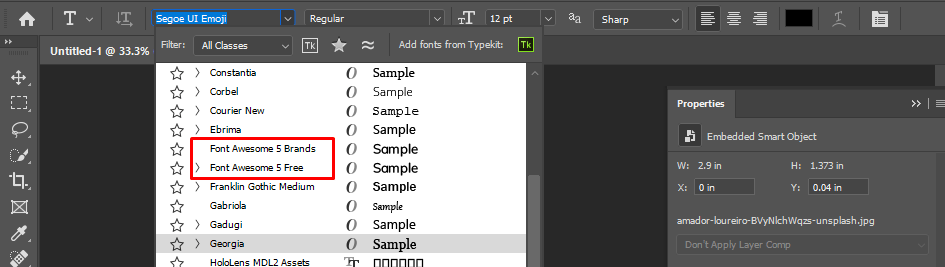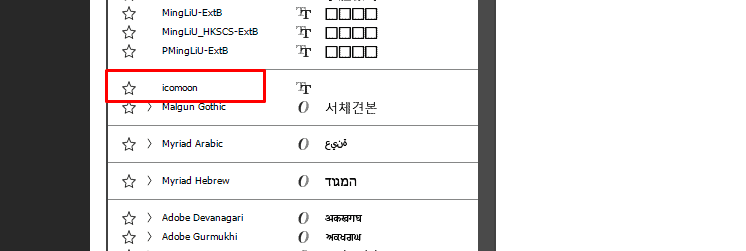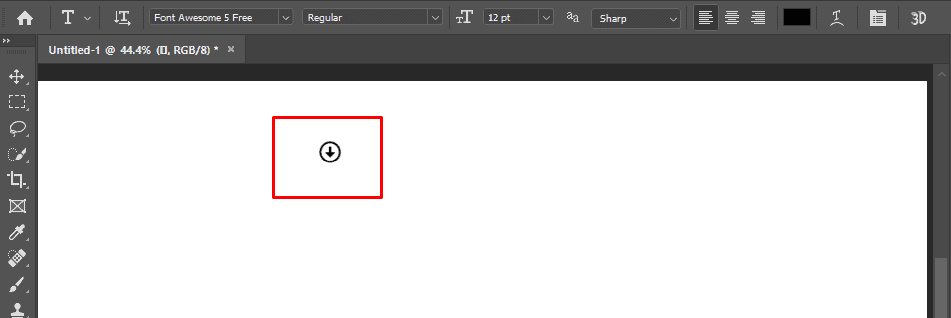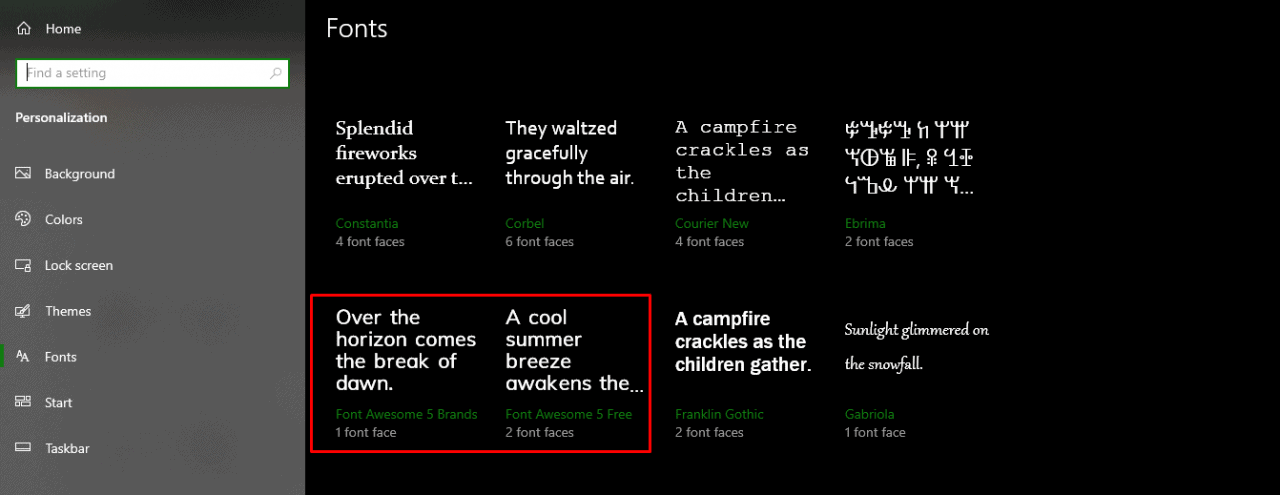
Do you know the use of icons on your website, content, or design can dramatically increase the acceptance of it to the visitors? Using the icons always give it a more realistic and intuitive look than static. It abruptly increases the charisma of your design.
But choosing the best icon sets sometimes make you confused. There are several icon sites available on the internet. Don't you think knowing those sites can help you to get a more attractive design? Indeed it can.
Okay, in this article, I will give you a detail comparison between Font Awesome and IcoMoon. Of course, it will help you to get to a decision which one is suitable for you and why.
What Is Font Awesome?
Font Awesome is a huge collection of icons. Font Awesome free version is completely free either for personal or commercial use. It has a pro version with more stunning icons.
Originally, it was designed for Bootstrap; however, you can use it in any of your favorite frameworks. In simple words, they look like icons, but you can handle them as fonts.
In their cheat sheet, you can see the names of all the available icons in the package.
Why We Use Font Awesome?
- A Large Variety of Icons: There is a wide range of web-related icons to choose from. Moreover, Large library with more icons being added frequently. Categories include web-application, directional, transportation, and brand icons.
- IE7 Support with Older Versions: IE7 support has been removed from Font Awesome 4.4.0. However, you can still use an older version for IE7 support.
- Designed to Be Used with Bootstrap: Though Font Awesome is exceptionally easy to use with Bootstrap, it can be used with any framework. Though Font Awesome is exceptionally easy to use with Bootstrap, it can be used with any framework.
- It's Retina Ready & Easy to Style: There's no need to worry about creating retina graphics since Font Awesome will give you high-quality iconography on every device. CSS is used to style the font and can easily change the color, size, drop shadow, or any other customization of an icon. You get all of the styling benefits of regular text, but now with icons!
- Community Support: Font Awesome offers you community support. You will get any kind of assistance regarding Font Awesome from the community.
- Icons Are Searchable: Font Awesome has a search option on the website. There are a lot of icons on the website, and you can get your one. You just need to do is type the name on the search option and get it.
How Can You Integrate Font Awesome in Your HTML?
3 Simple Steps to Use Font Awesome in Photoshop
Go to Font Awesome Cheatsheet and select the icon which you want to use. Copy that icon.
What Is IcoMoon?
IcoMoon is an icon solution that provides three main services for you. They are the Vector Icon Packs, The IcoMoon App, and hosting icons as SVGs or fonts.
In their cheat sheet, you can see the names of all the available icons in the package.
- Vector Icon Packs: IcoMoon provides many free icon packs. You can find them in the library tab of the IcoMoon app. Each of them has a license link that you can refer to. Besides, these free icon, you can purchase three high-quality premium icon packs separately.
- The IcoMoon App: This app allows you to browse and search for the icons you need quickly. You can download these icons, do some basic editing, import your own icons, generate icons in SVG, Polymer, PDF, XAML, PNG, and CSS sprites.
- Hosting Icons as SVGs: In addition to icon fonts, the IcoMoon app allows you to download your chosen icons as SVGs, which can be used as inline SVGs in HTML.
Why We Use IcoMoon?
- Free IcoMoon App with Free Icons:
- Build Custom Fonts: Using the IcoMoon App, you can simply create your own custom fonts that only contain the icons that you would need.
- Pixel Perfect Results: The IcoMoon app takes grid sizes of icons into account and generates pixel-perfect results with proper alignment. The font size set will display perfectly to the front end.
| Convert SVGs to Font? | Yes | No |
| Font Generator App? | Yes | No |
| Create Own Icon-Kit? | Yes | Yes |
| Icons Are Searchable? | Yes | Yes |
| Launched in | November, 2011 | December, 2017 |
I can give you a screenshot of Google trends that reflects the demand for them. Here it is....
Convinced?